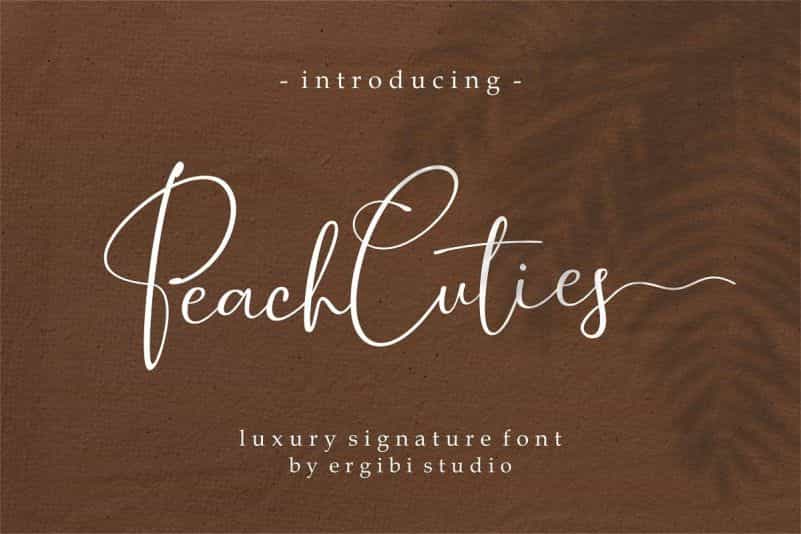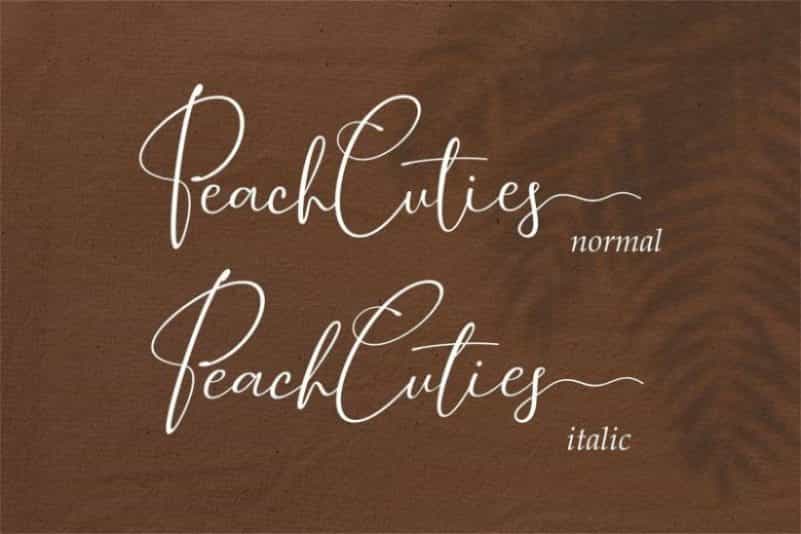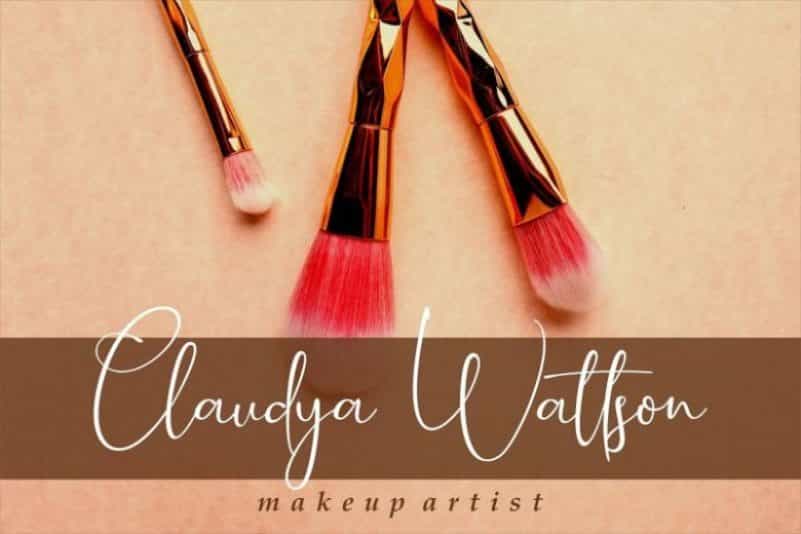
Peach Cuties Font is a very nice and fashionable signature font display from Ergibi Studio. This font consists of uppercase, lowercase letters, numbers, punctuation marks and symbols along with multilingual support.